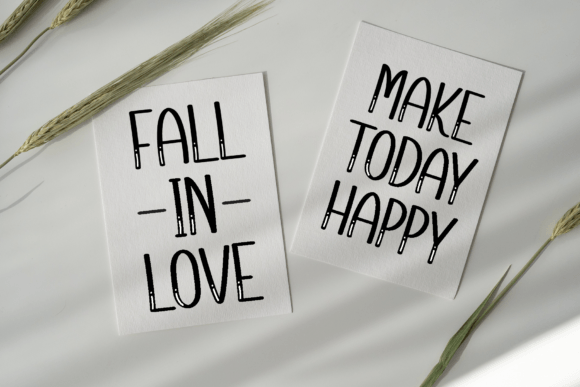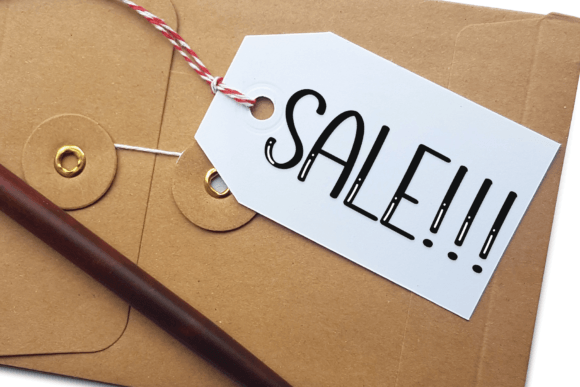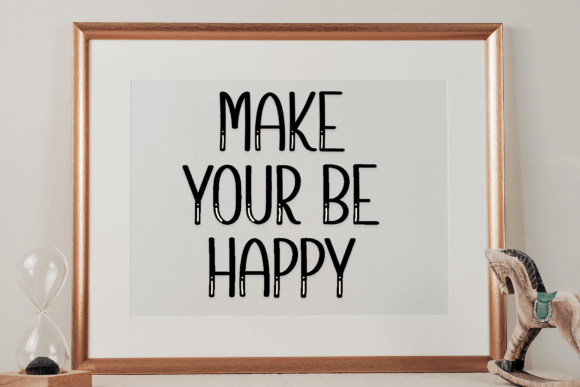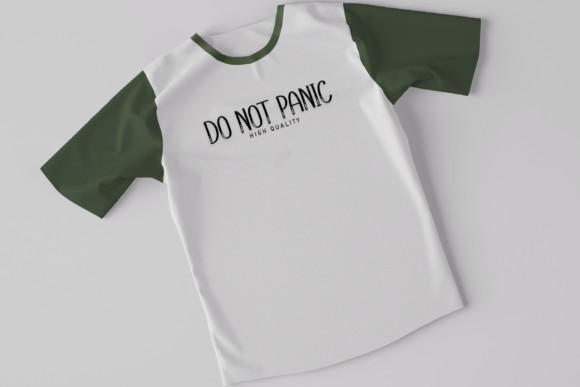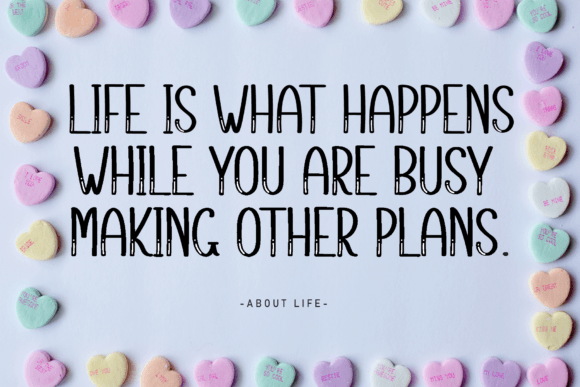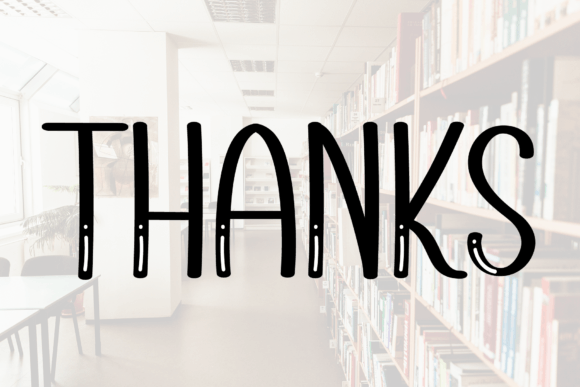
Introduction to Library School Font
Library School is a sweet and friendly handwritten display font.
Cute and fun, this font is ideal for writing wedding invitations, cards, or any other design that might need a fun touch .
Key Features of Library School Font
Why Choose Library School Font?